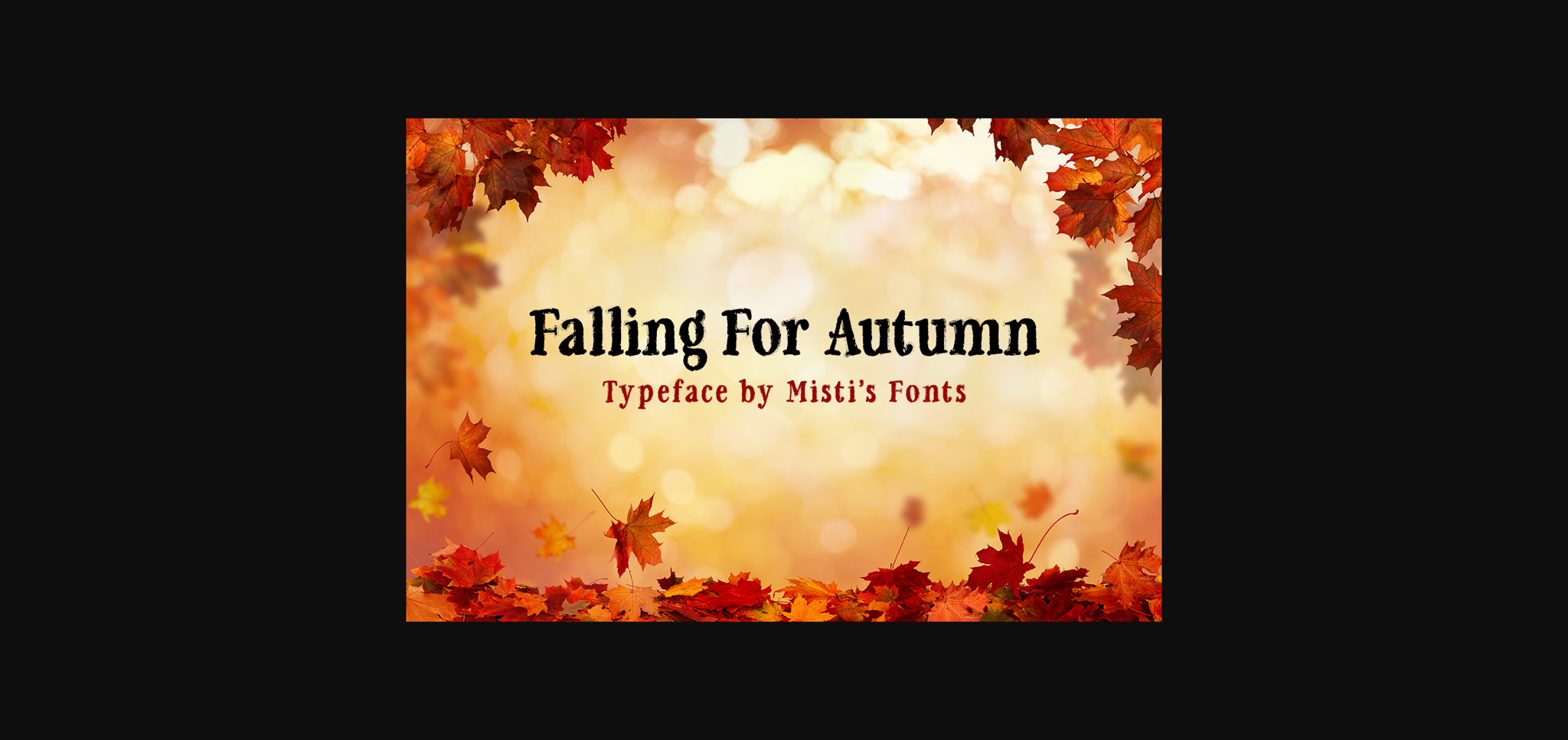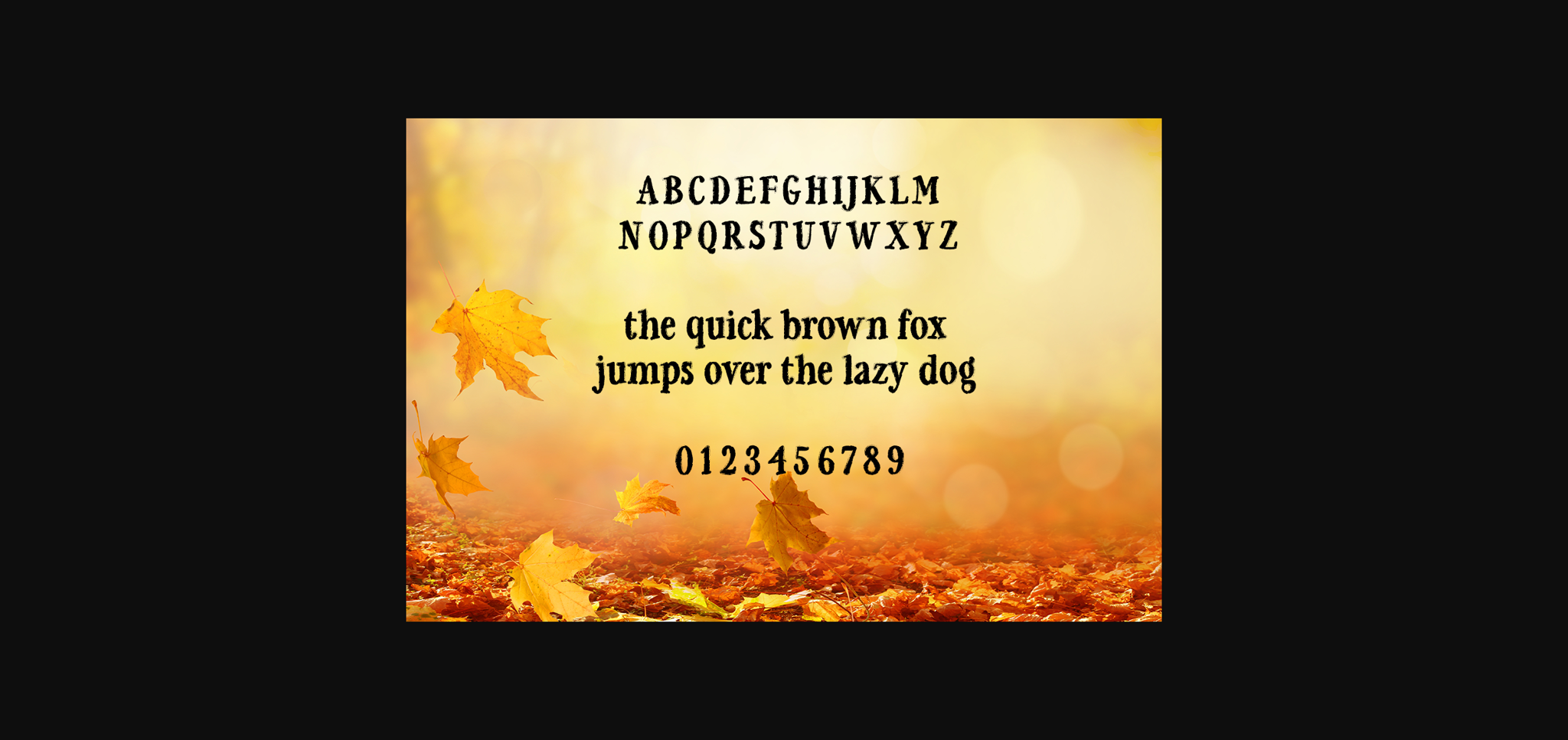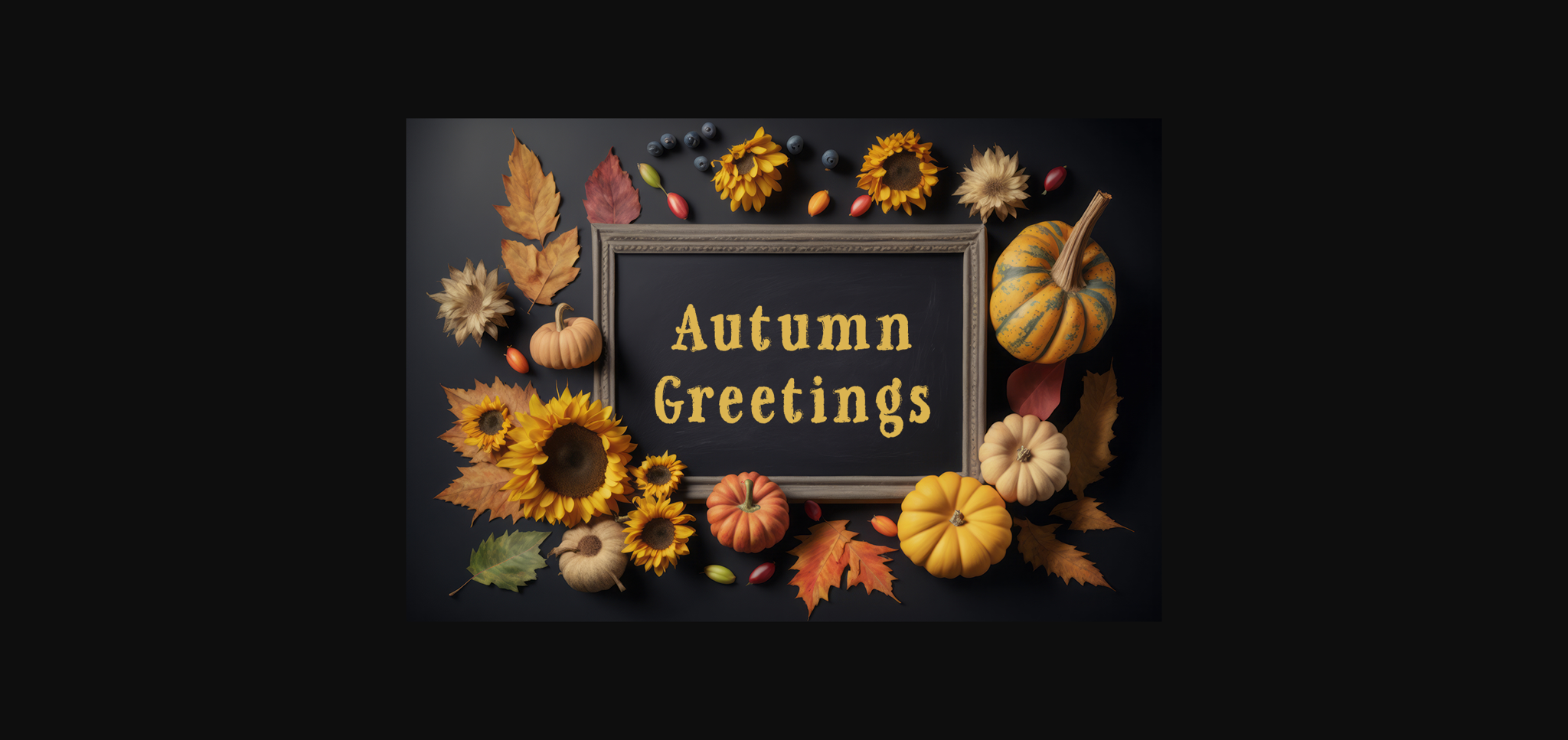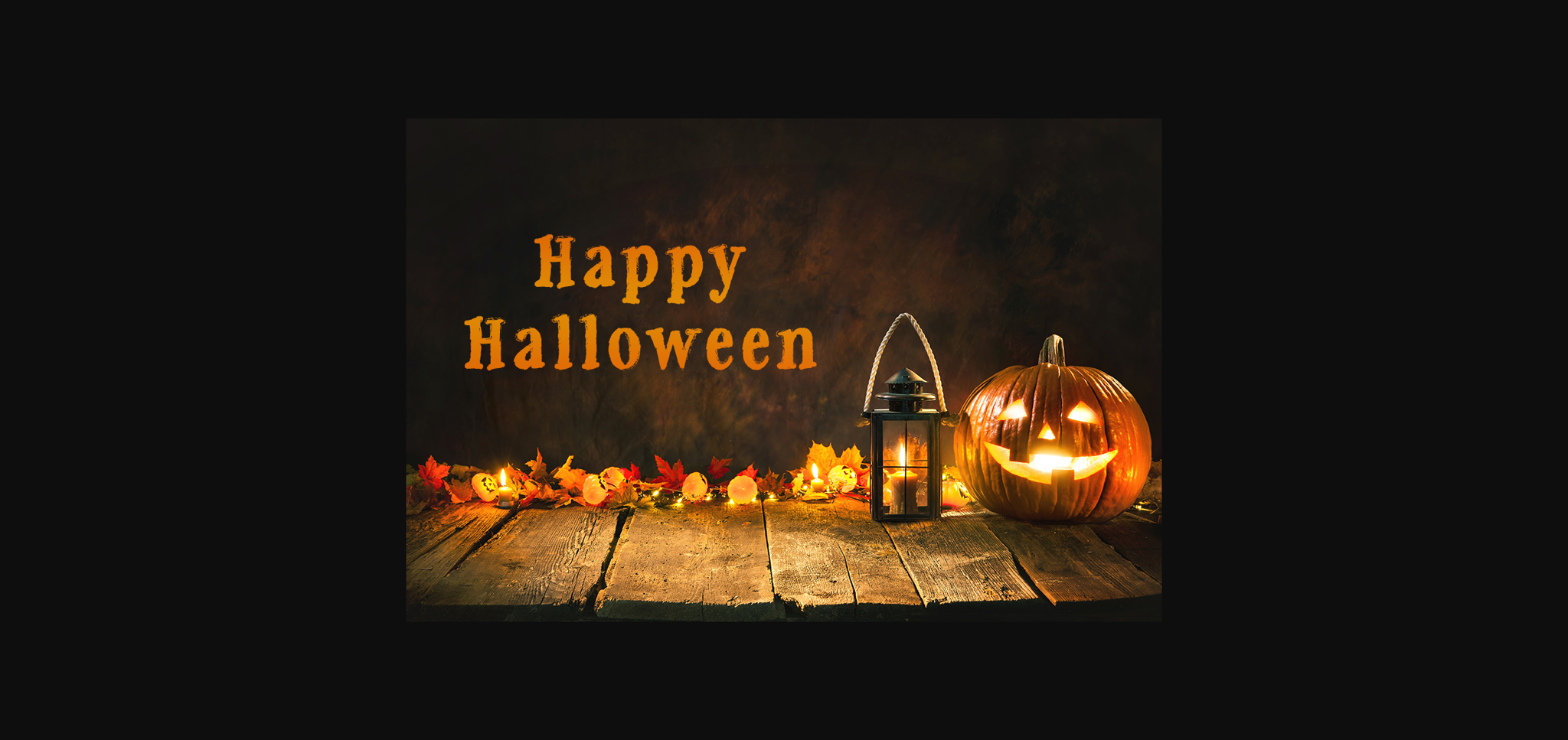
About Falling for Autumn Font
Falling For Autumn is a beautiful and unique font that captures the essence of the fall season. This rough sans serif font is perfect for all your design needs, whether you’re creating flyers, posters, or social media graphics. The font’s rough edges give it a natural and organic feel, making it perfect for designs that need to convey a sense of warmth and comfort.